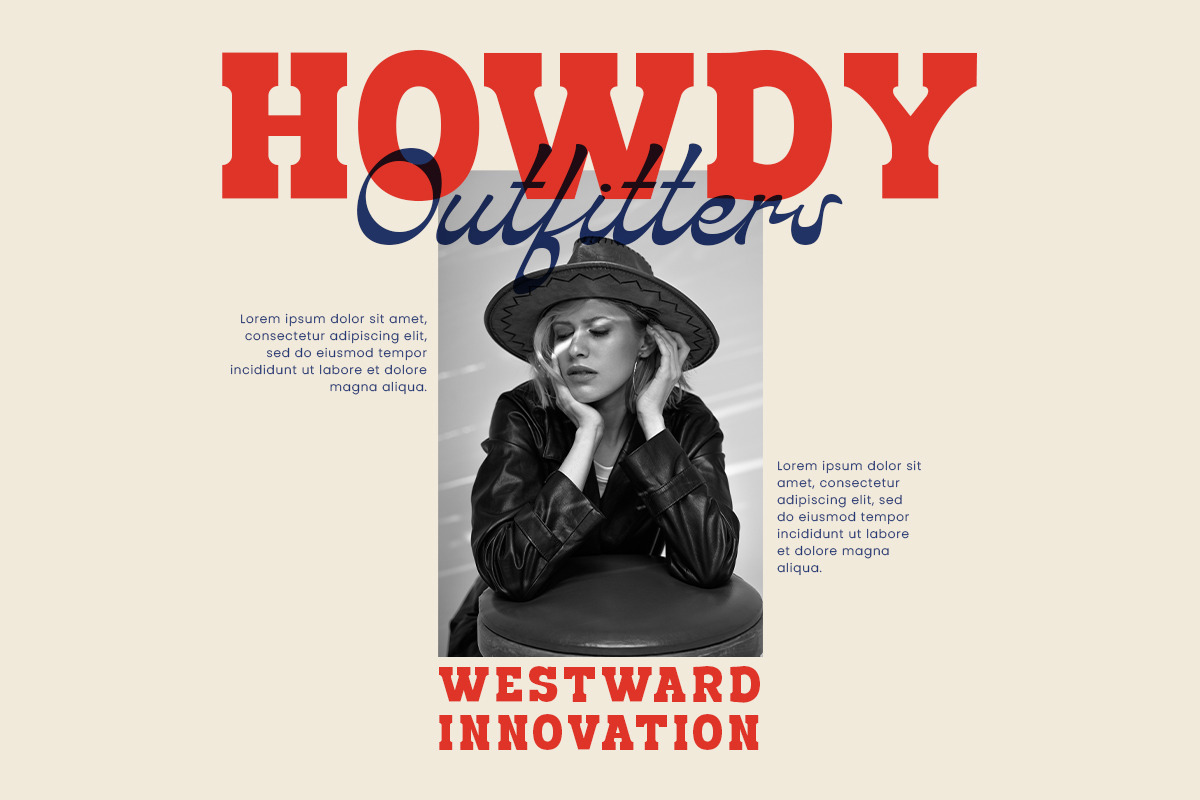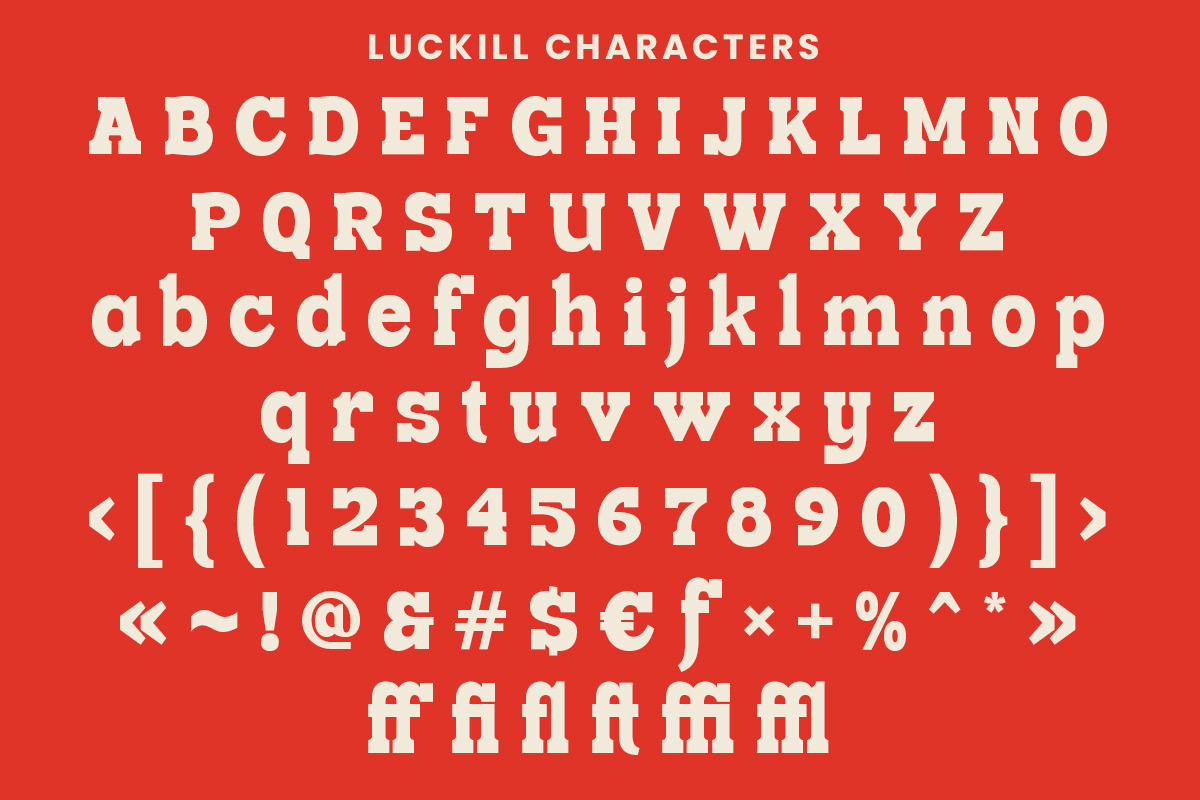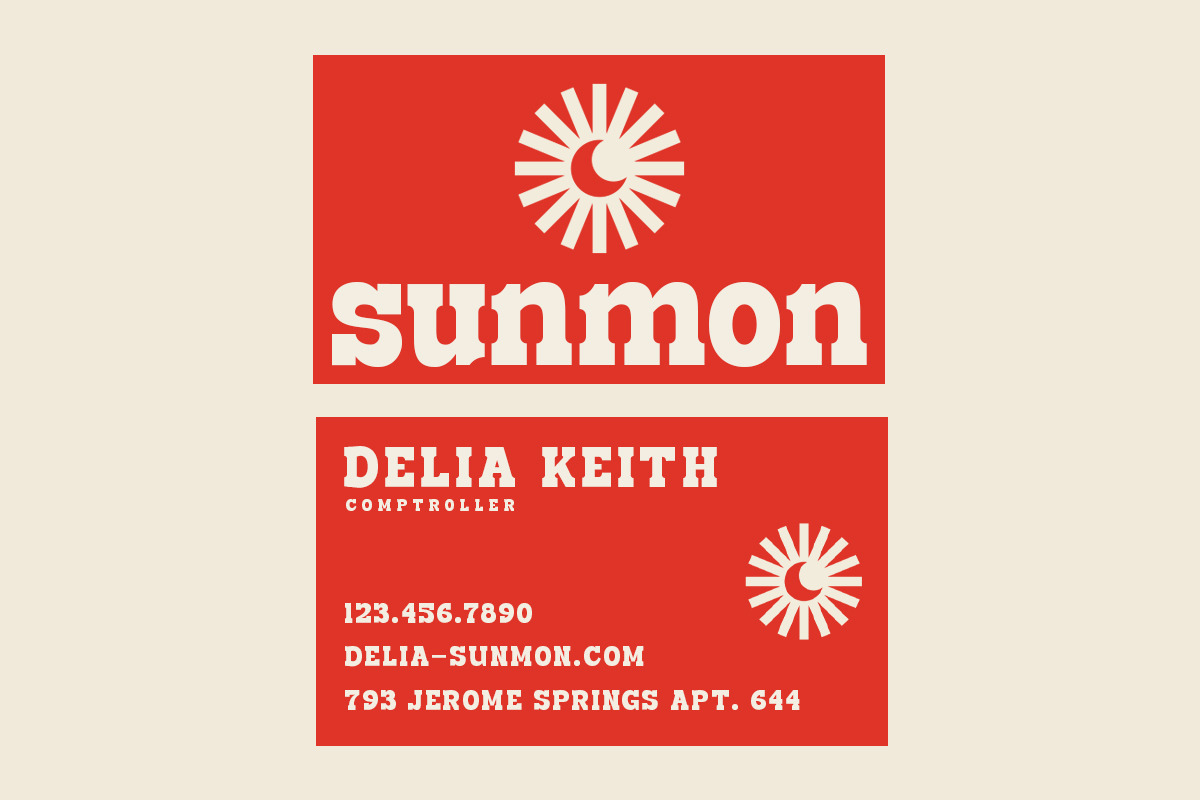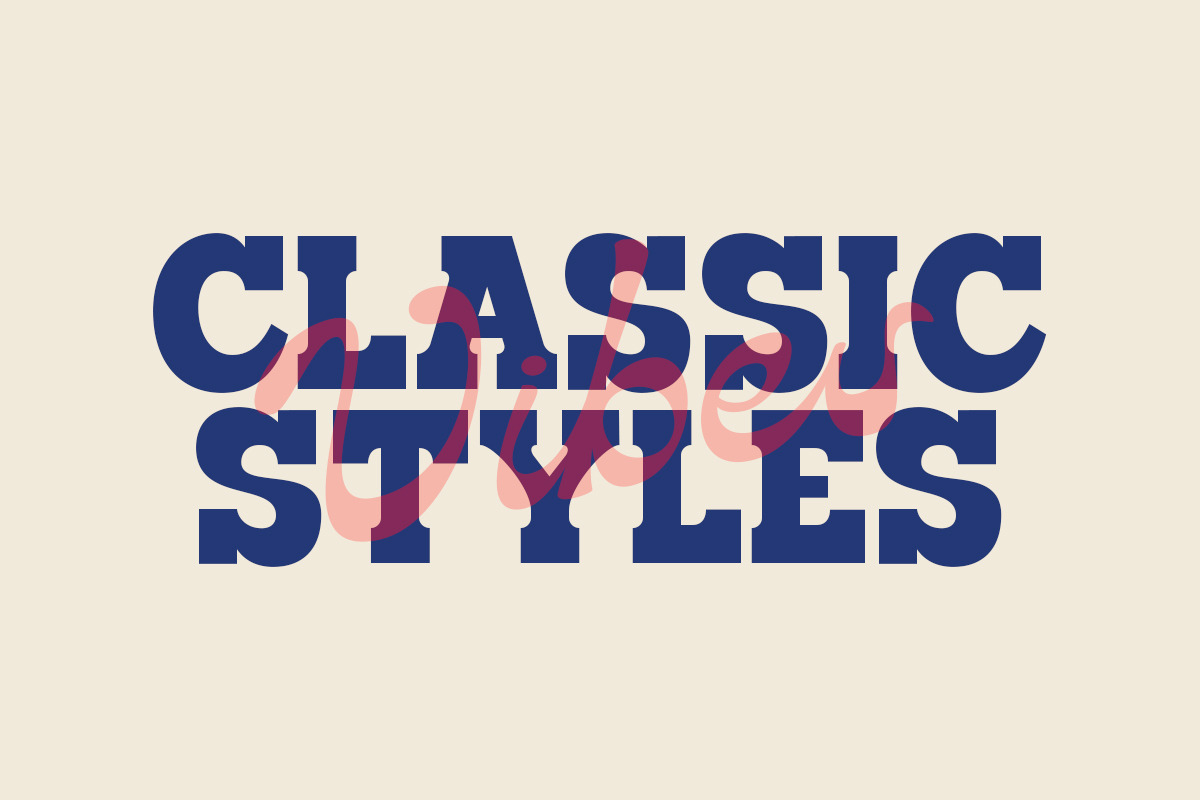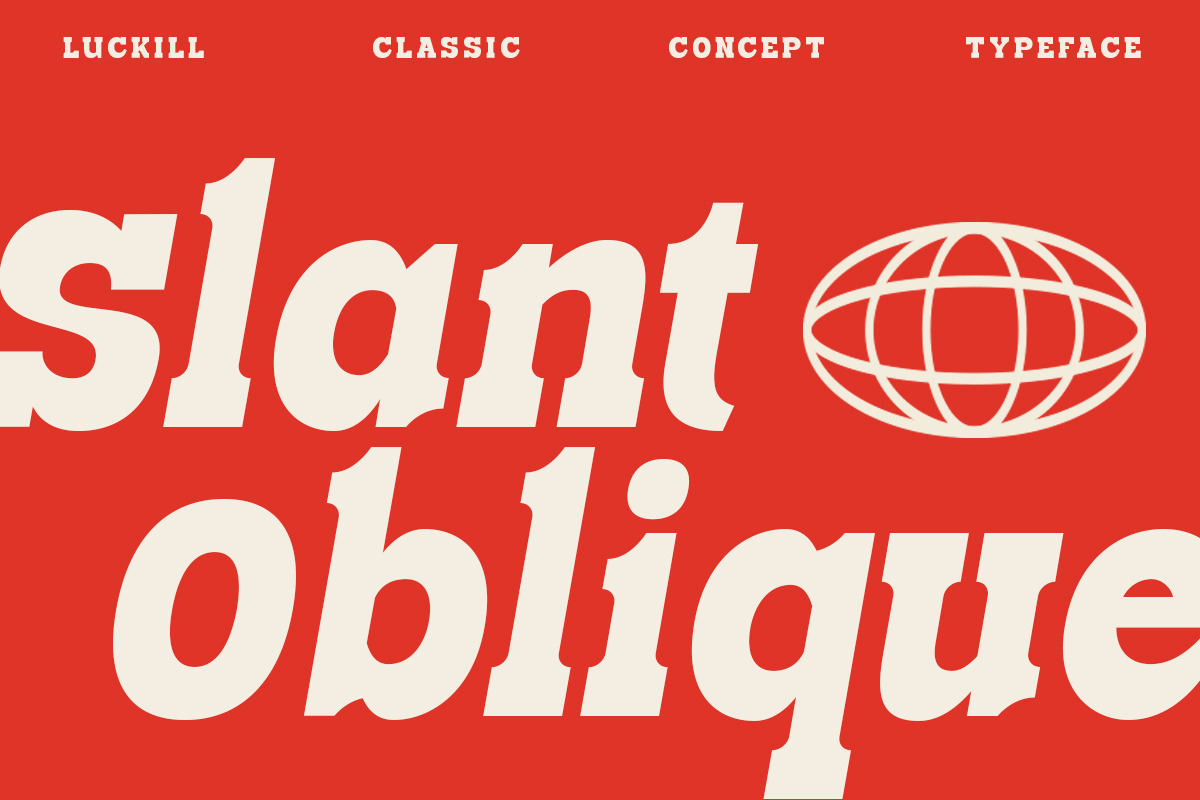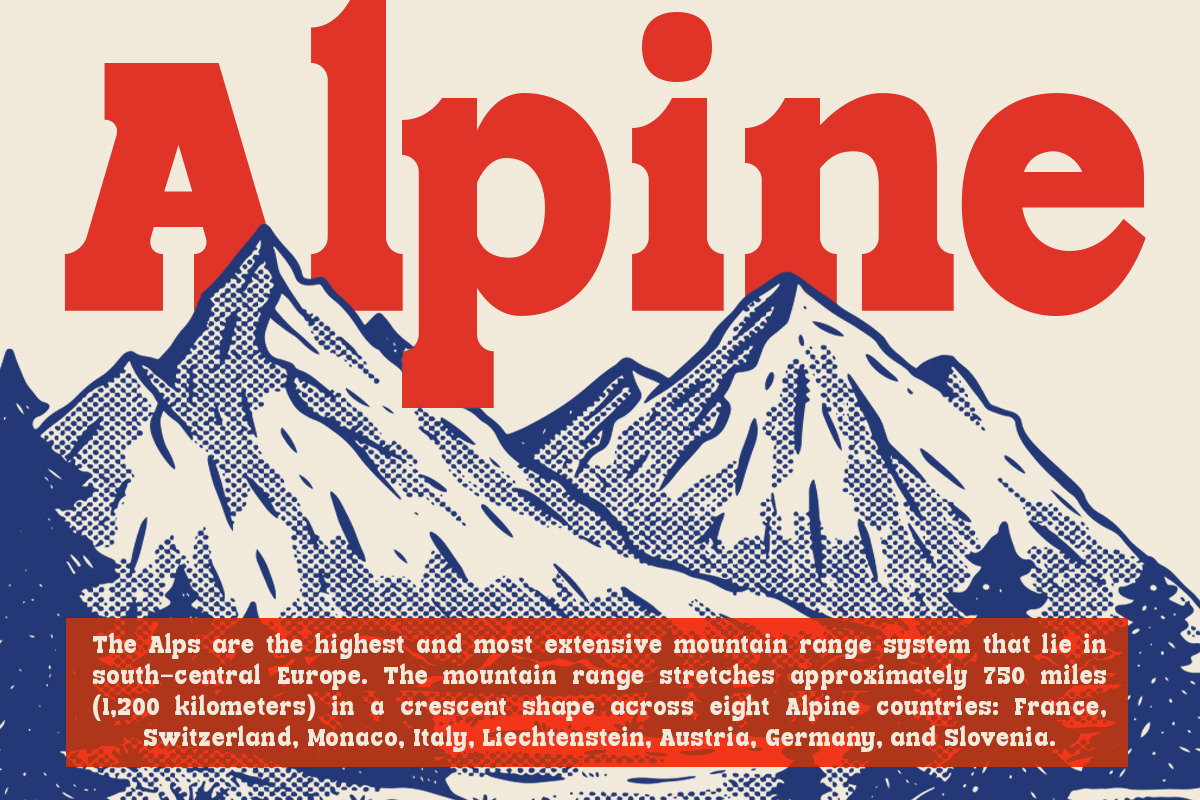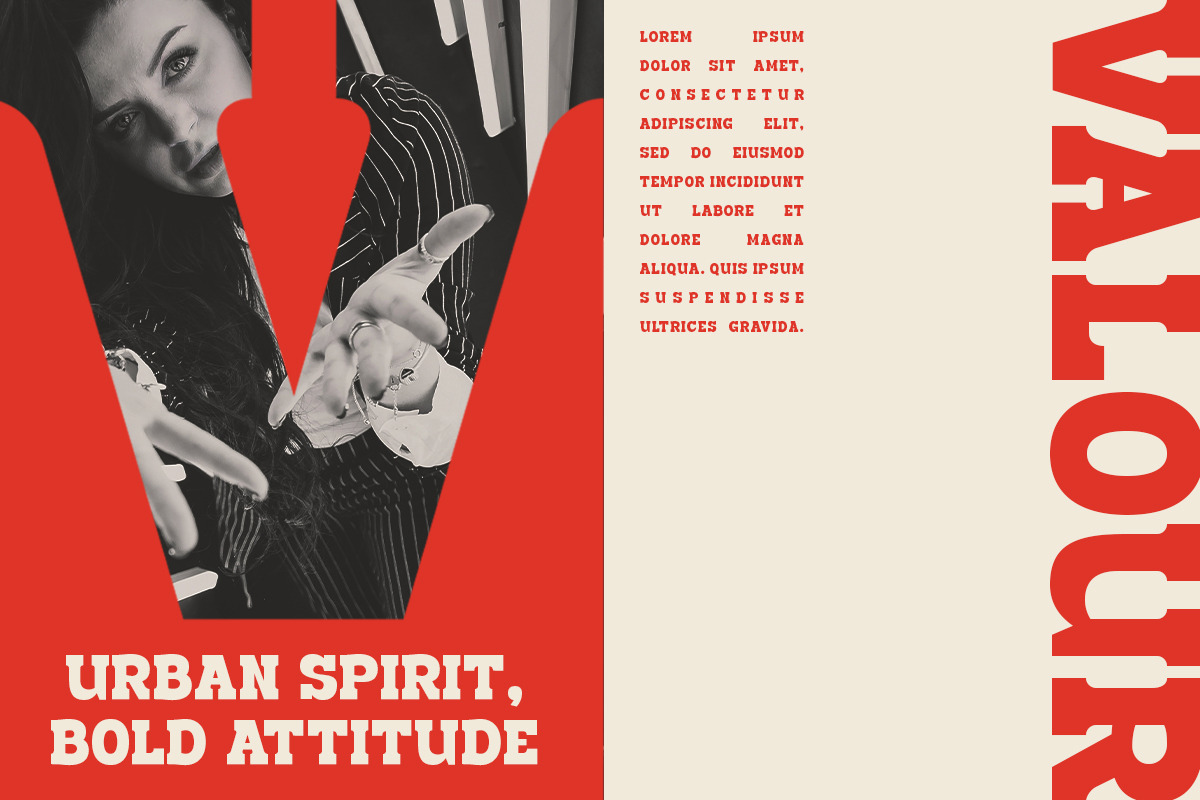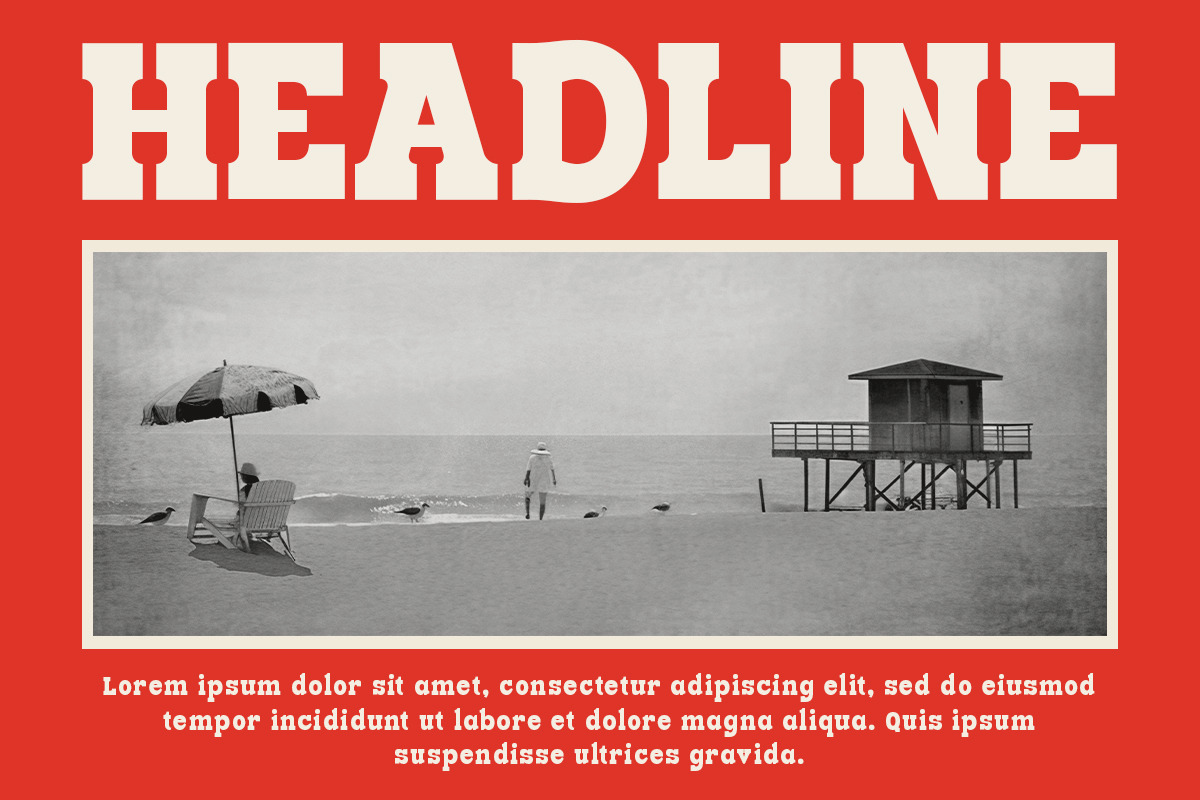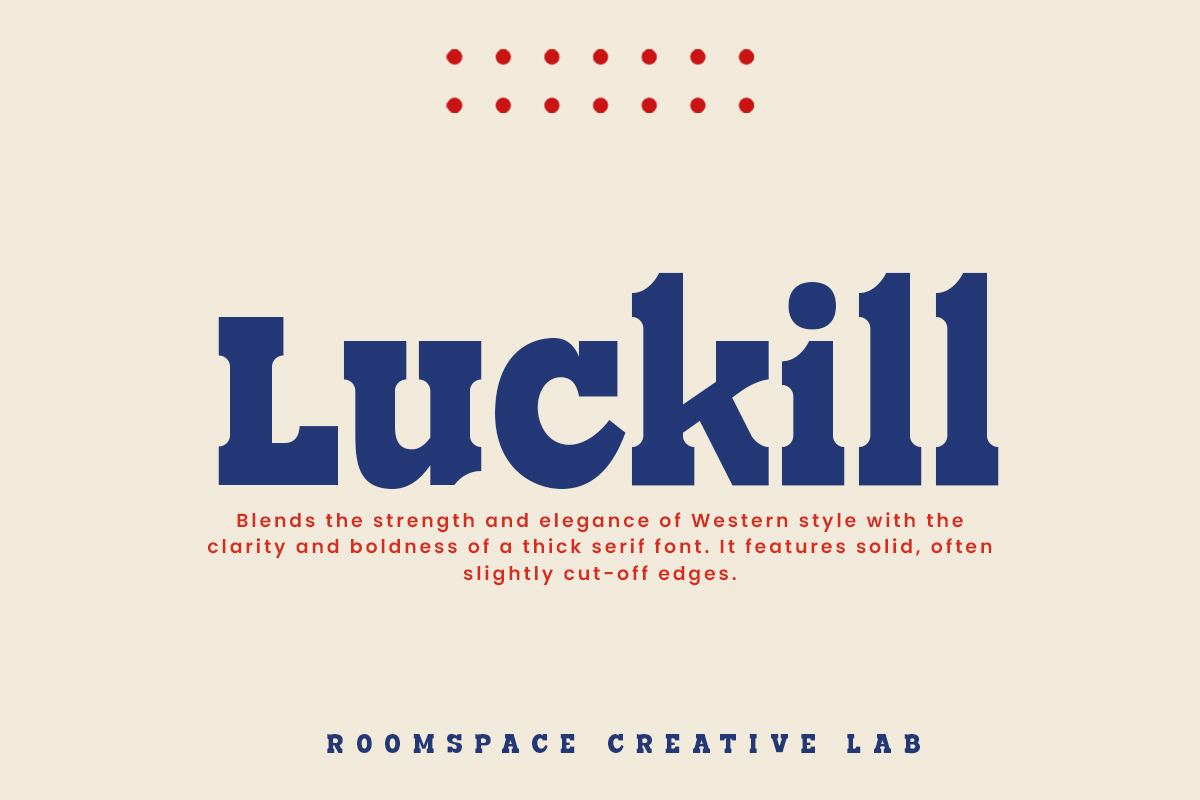
Luckill Serif Font - Elegant Western
Luckill font blends the strength and elegance of Western style with the clarity and boldness of a thick serif font. It features solid, often slightly cut-off edges, giving it a strong and confident appearance perfect for headlines and big titles.
Its serif adds a classic and refined touch, while the bold style adds boldness and strong visual appeal. This makes Luckill suitable for various graphic design purposes, such as posters, flyers, or article titles, where clarity and emphasis are essential.
Luckill's balanced proportions between thickness and letter height, along with consistent line width and character spacing, make it easy to read and stand out even in large use.
With its Western-inspired atmosphere of adventure and bravery, Luckill font brings a classic touch to modern design, making it an ideal choice to grab attention and effectively convey messages in various design projects.